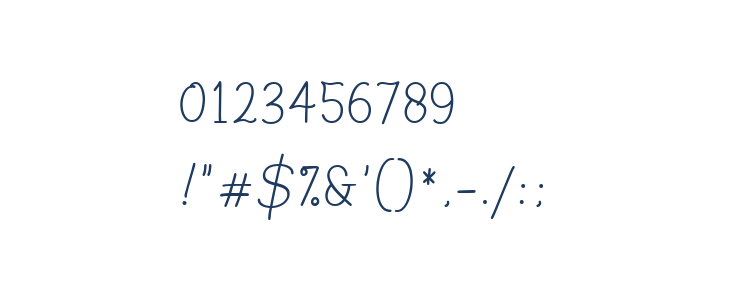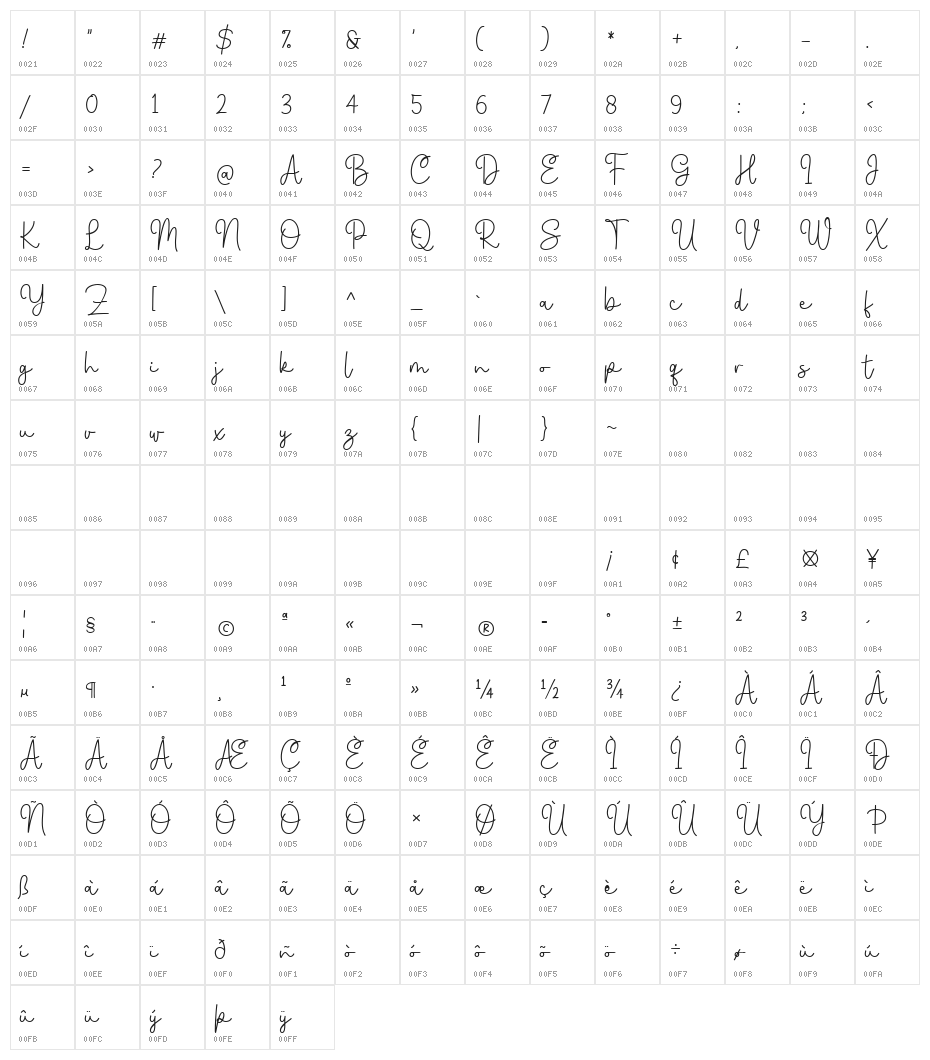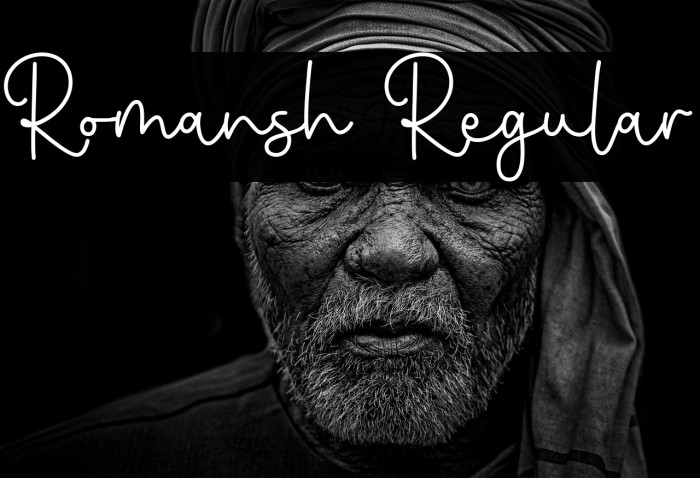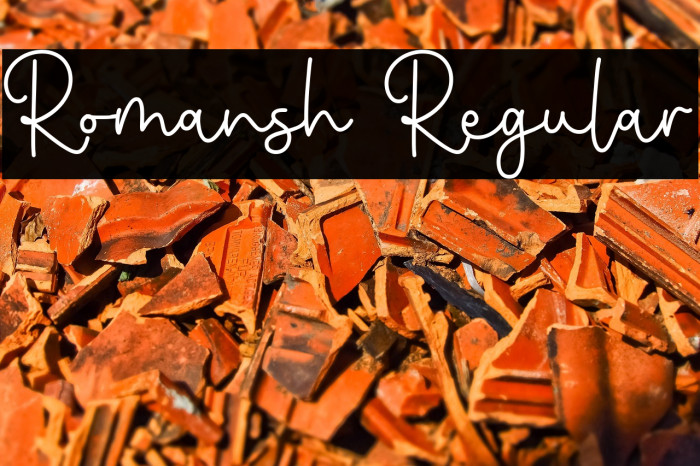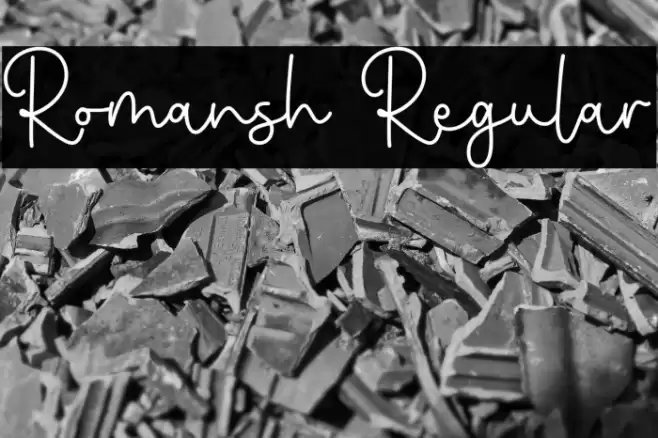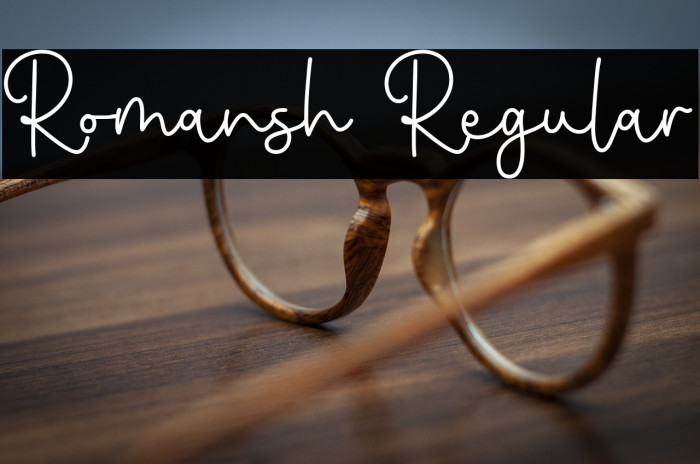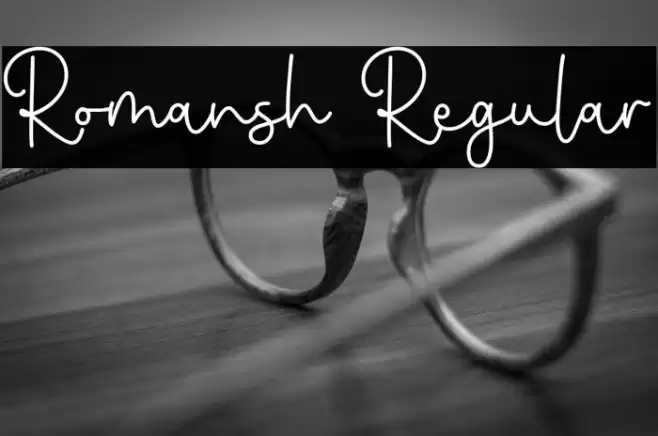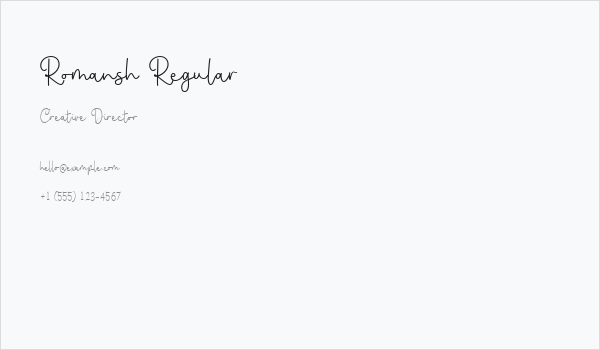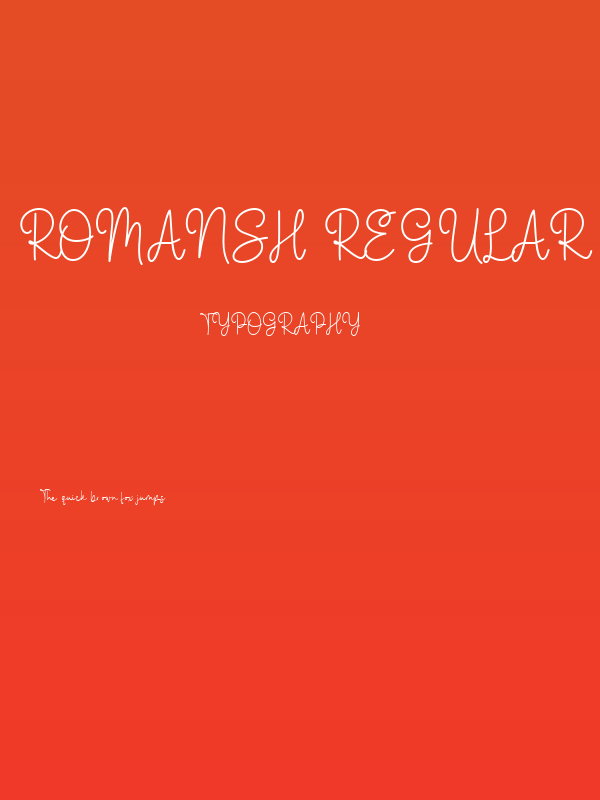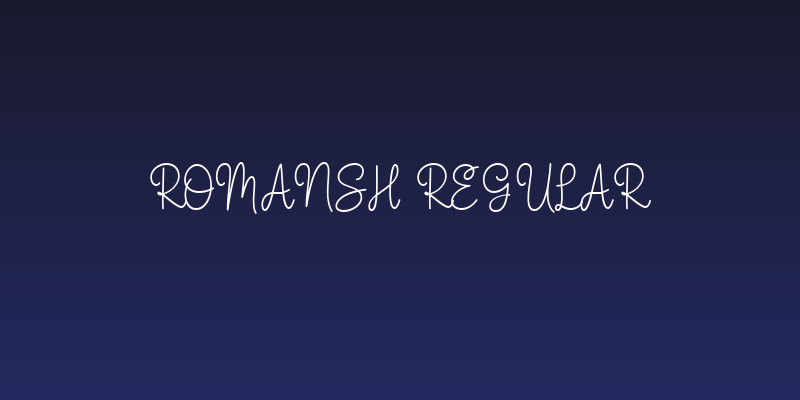
Romansh Regular Font
Romansh Regular Description
This font features a playful and elegant handwritten style, characterized by its fluid and connected letterforms. The uppercase letters exhibit a graceful loop and curve, while the lowercase letters maintain a consistent flow, enhancing readability. The numerals are clear and distinct, complementing the overall aesthetic. Special characters are thoughtfully designed, maintaining the font's cohesive look. This font exudes a casual yet sophisticated vibe, making it versatile for various design applications.
Use CaseLogos, Invitations, Personal branding
Proposed ProjectsIdeal for wedding invitations, greeting cards, personal branding, and creative projects that require a touch of elegance and personality.